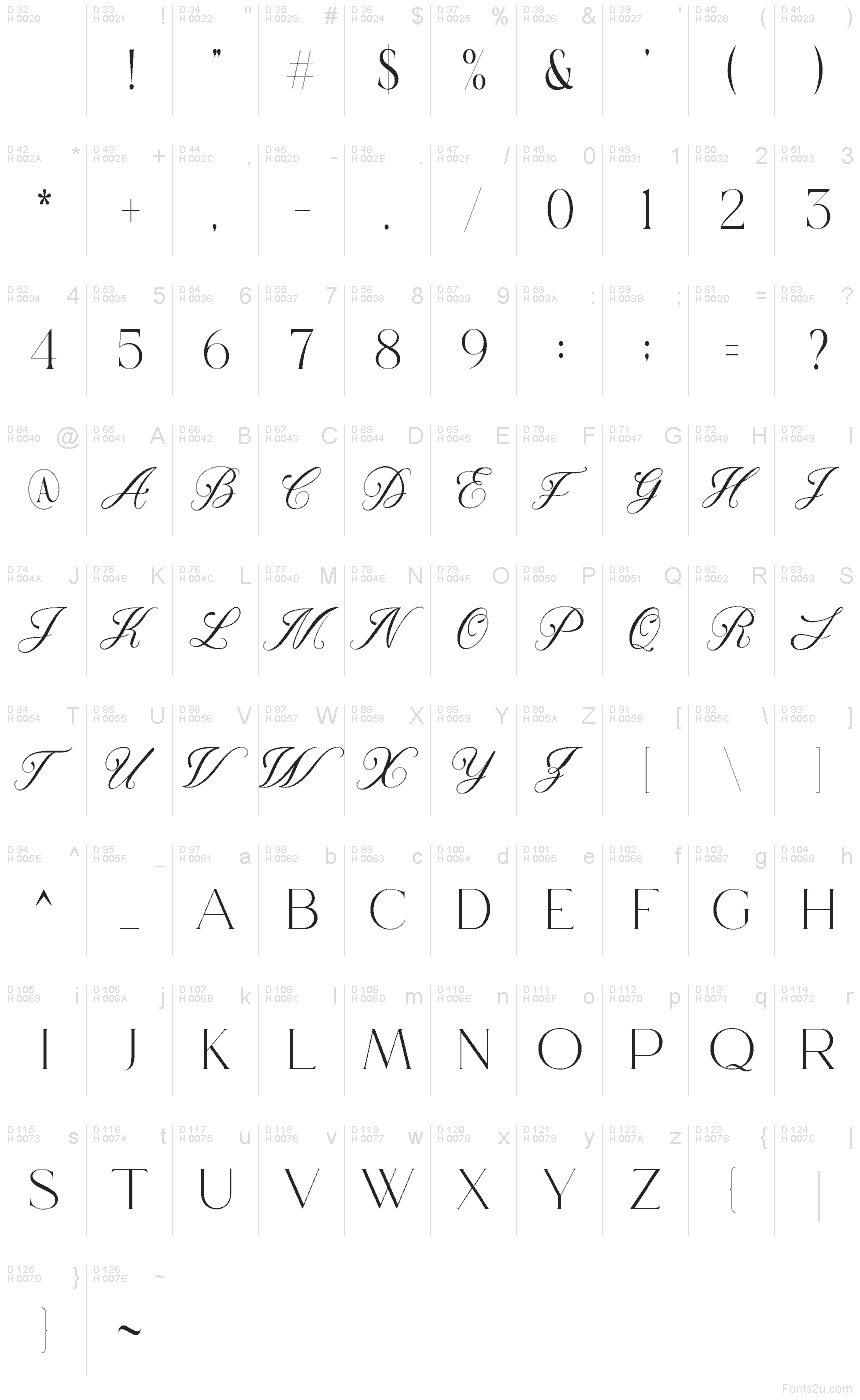
Seaword font by Graphicxell is a free decorative serif font with a dramatic, fashion-forward twist. Tall, razor-thin letterforms mingle with sweeping, calligraphic curves, giving every word a sense of motion, like ink pulled in a single confident stroke. The sharp, airy spacing lets the letters breathe, so even a short word feels luxurious and cinematic on the page.
Using Seaword, headlines instantly take on a couture, editorial feel that shines on perfume packaging, magazine covers, brand marks, wedding suites, and high-end social media graphics. This free font works beautifully when set large, letting those long hairline strokes and elegant curves really show. Pair it with a simple grotesque sans for body text to keep the spotlight on Seaword’s sculpted, graceful forms.